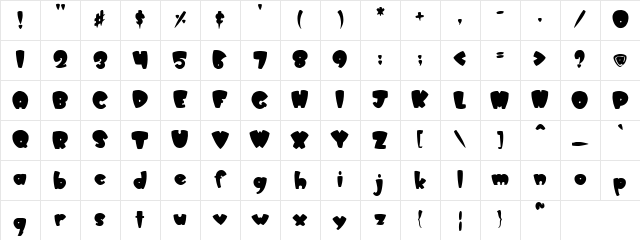
PC Comic Strip Black has an approachable, lighthearted character - its loose, expressive forms are well-suited to children's content, casual branding, and fun-first design.
Font Pairing: Pairs well with a rounded or humanist sans for body copy, maintaining the friendly tone without relying on PC Comic Strip Black to carry extended reading.
Pro Tip: Use PC Comic Strip Black at larger display sizes where its expressive character can land. Pair with a clean, simple sans for body copy to maintain readability.